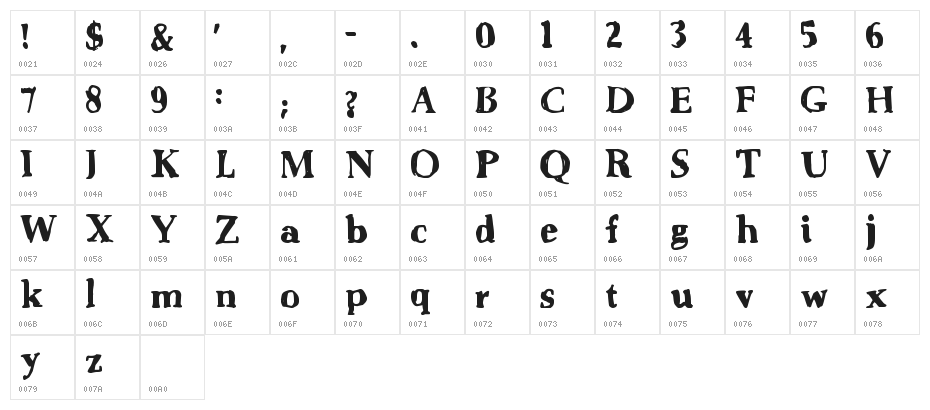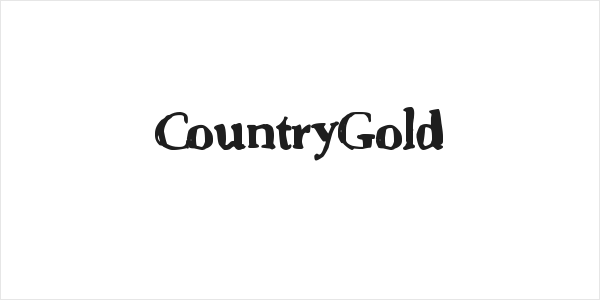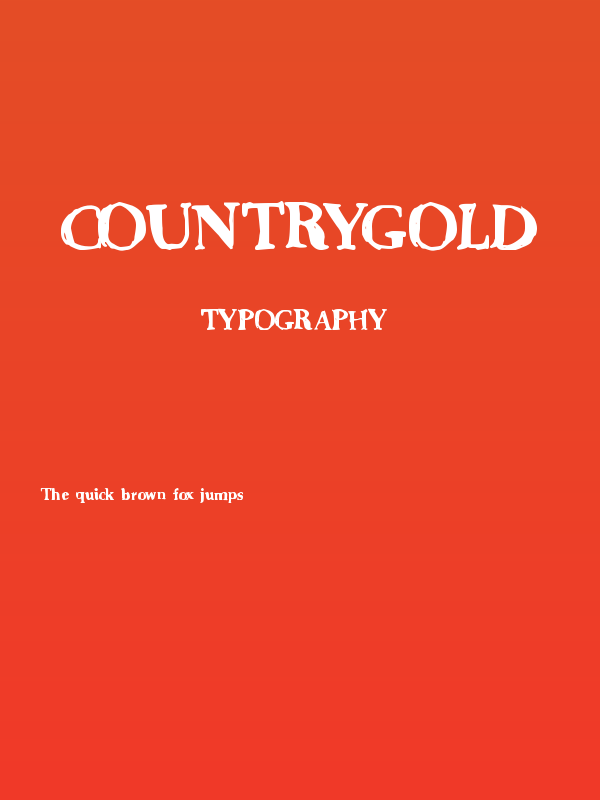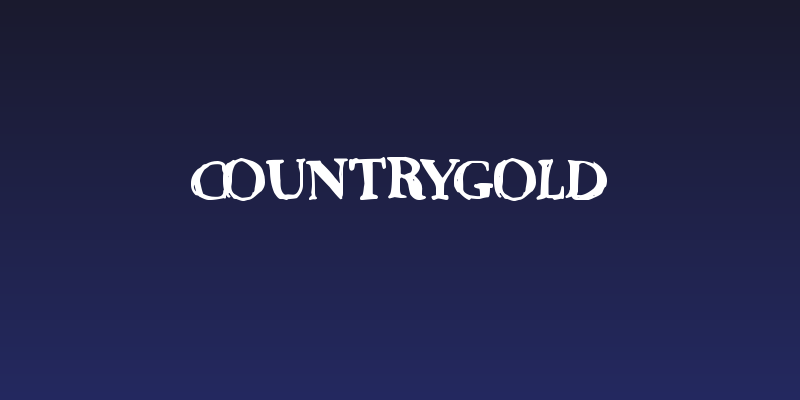
CountryGold Font
| Gesamtstil | Vintage |
| Anwendungsfall | Logos, Headlines, Posters |
| Vorgeschlagene Projekte | Ideal for branding, posters, signage, and any project needing a vintage or rustic touch. |